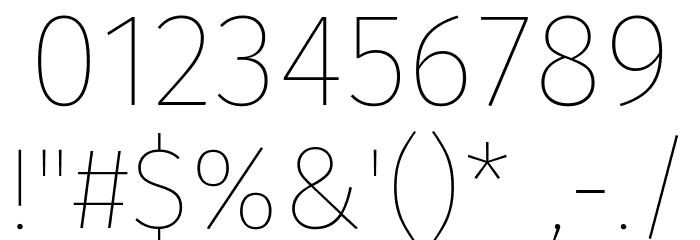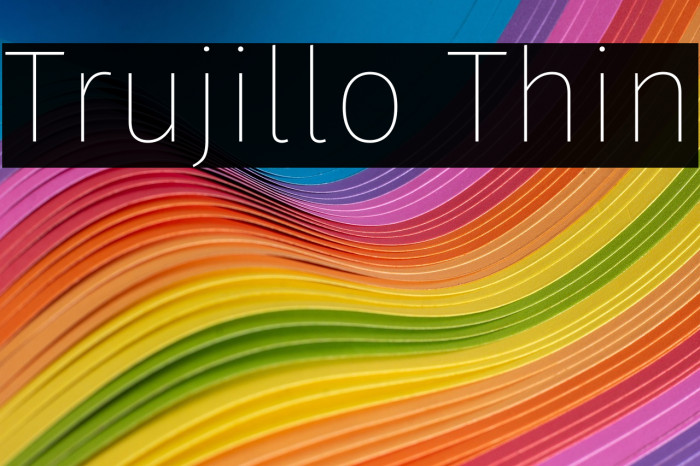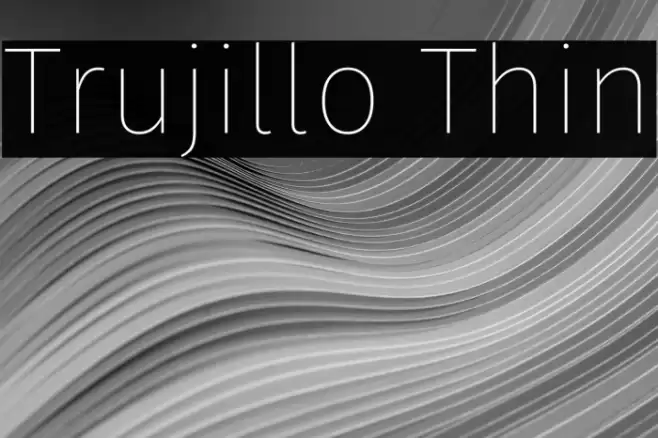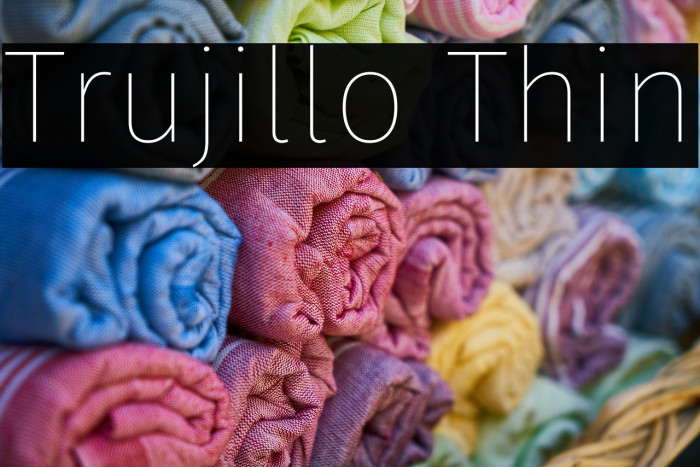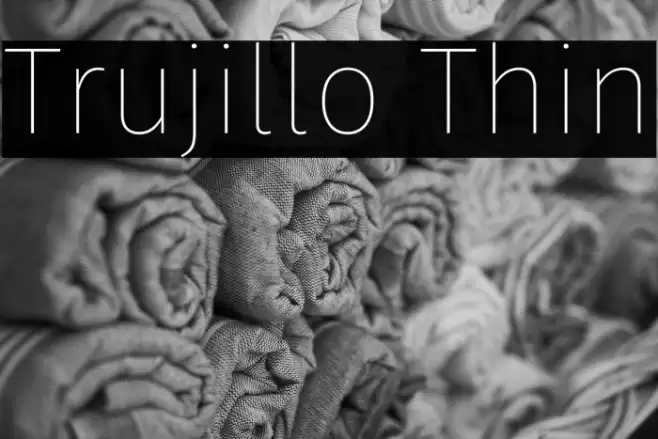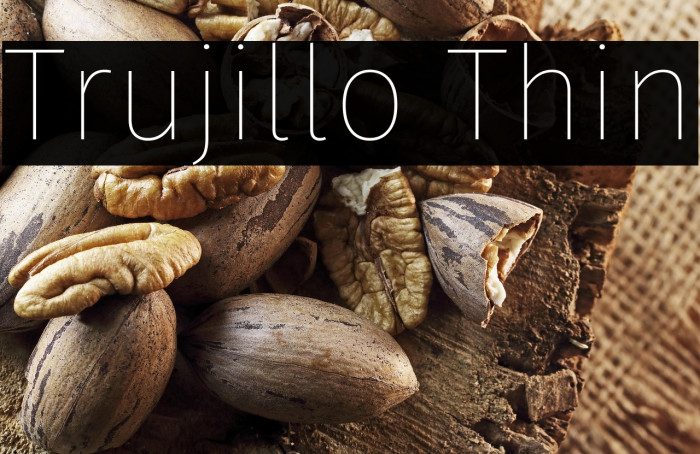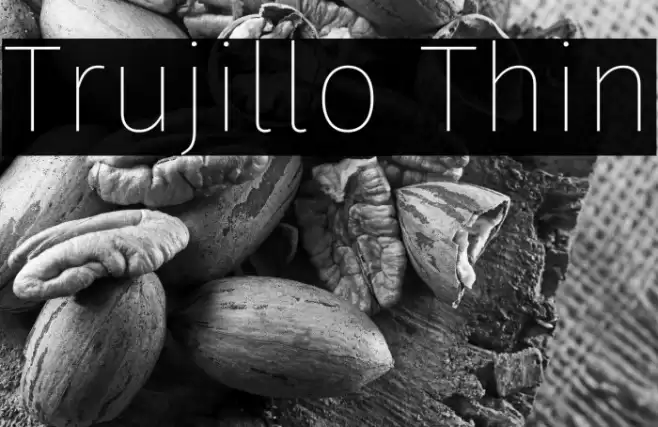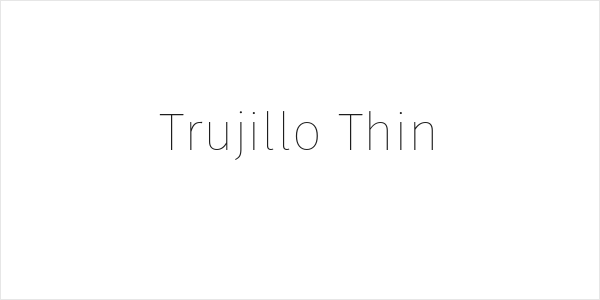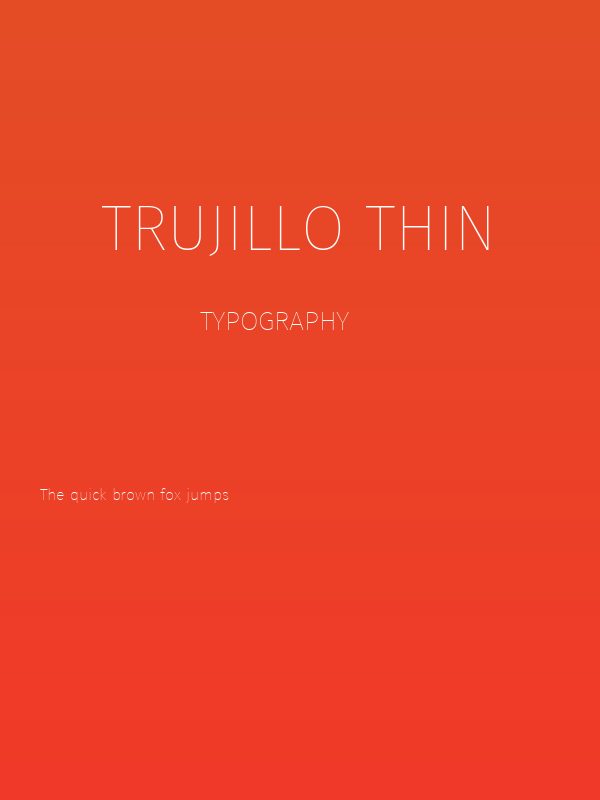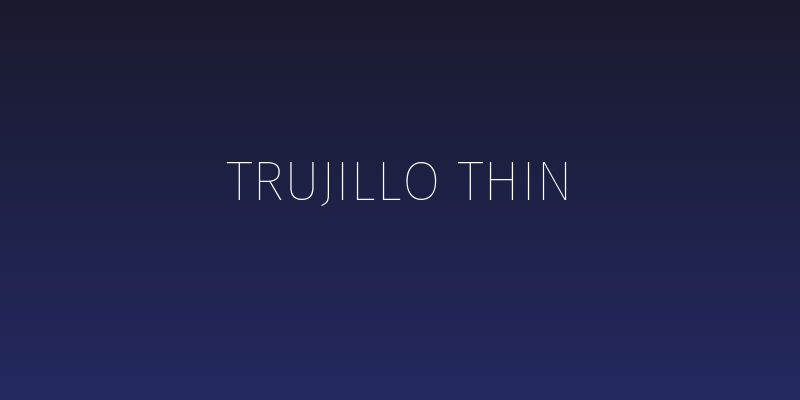
Trujillo Thin Font
Trujillo Thin Description
This font features a sleek and modern design with a thin, elegant stroke. The characters are clean and minimalistic, offering a contemporary aesthetic that is both stylish and functional. The uppercase and lowercase letters maintain a consistent height and width, providing a harmonious appearance. The numerals are clear and easy to read, while the special characters blend seamlessly with the rest of the font. Its simplicity makes it versatile for various design applications, ensuring readability and sophistication.
| Proposed Projects | Ideal for use in modern branding, minimalist websites, elegant invitations, and contemporary editorial design. |